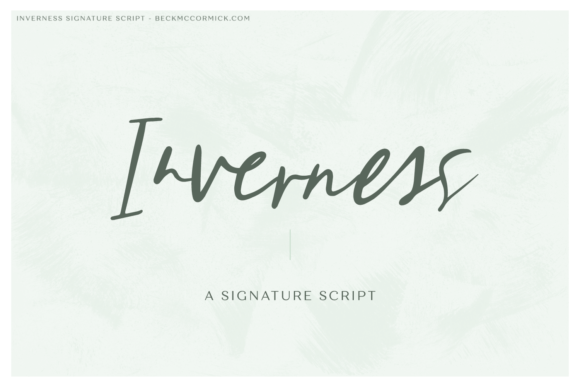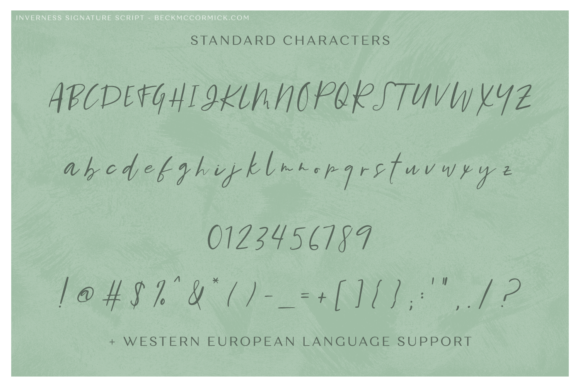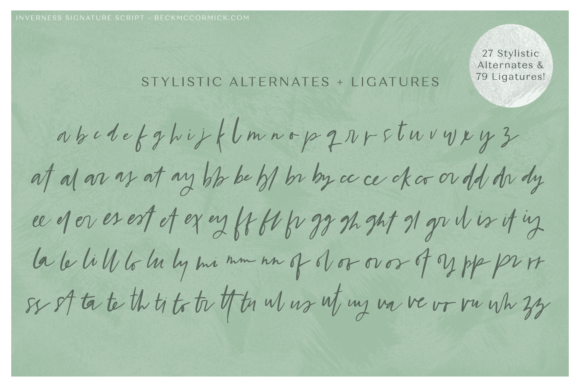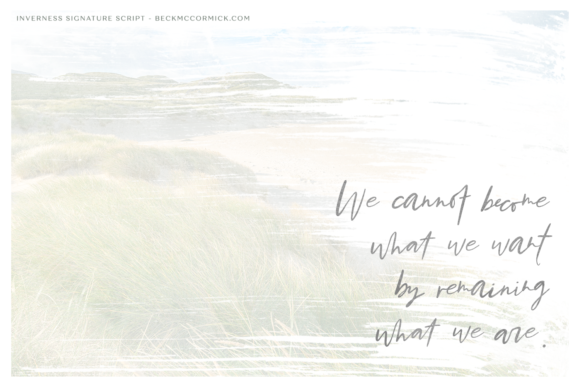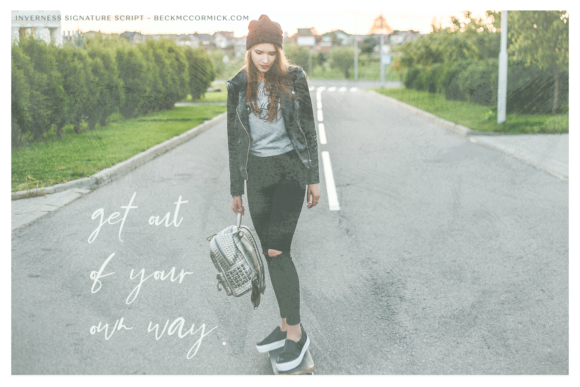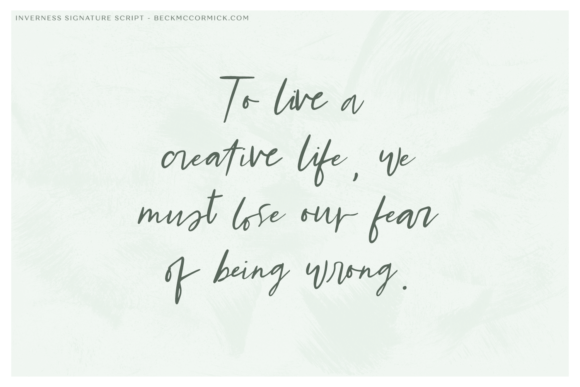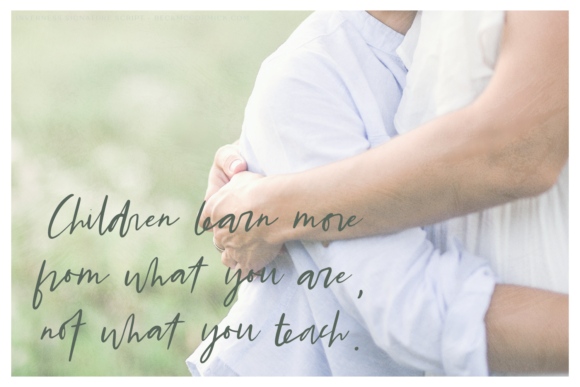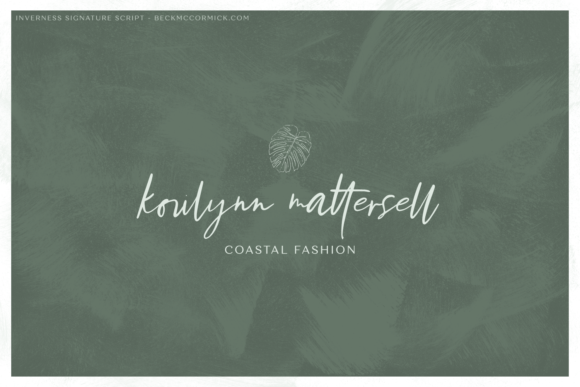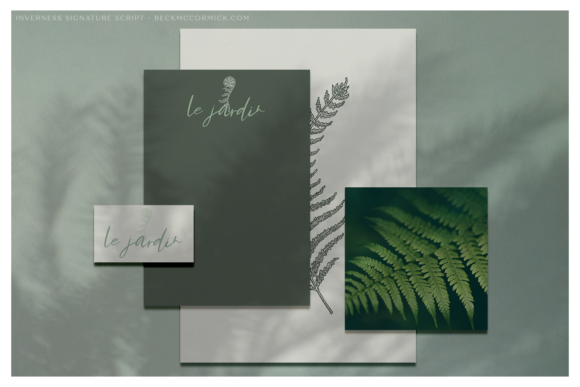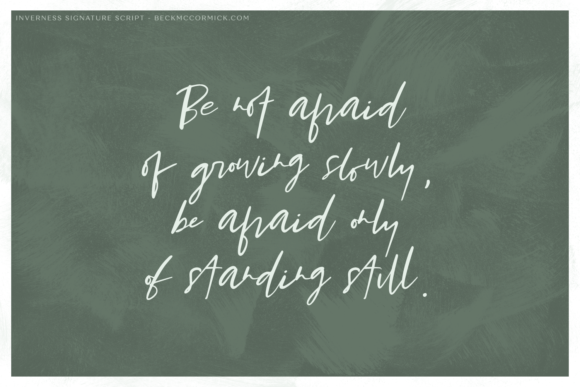
Inverness Font
About Inverness Font
Inverness is a new signature-style script with irregular characters that mimic real handwriting. This font adds a unique flair of authenticity to your design.